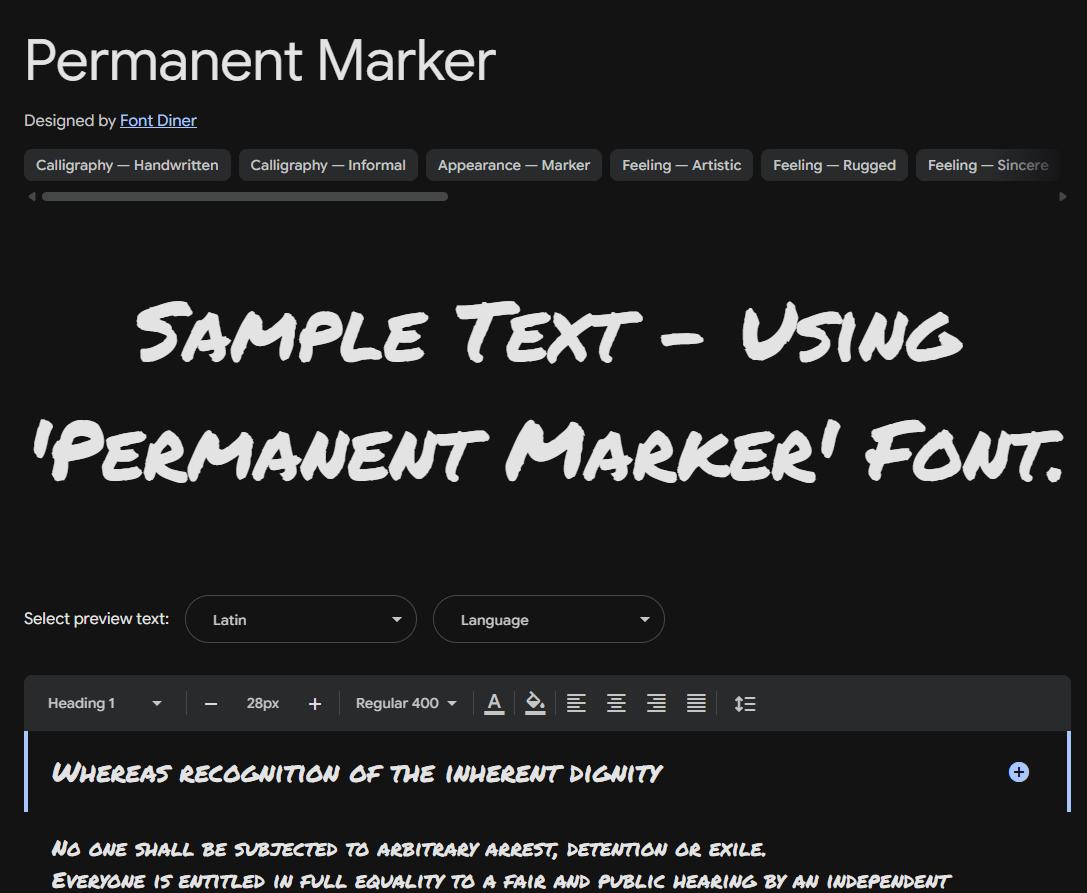
Engineered by Font Diner as a high-impact display face, Permanent Marker leverages a singular, robust weight to replicate the non-uniform ink distribution and pressure-sensitive terminals characteristic of analog wide-tipped tools. This single-style typeface operates at the intersection of vernacular signage and modern web performance, offering a high x-height and generous counters that ensure legibility despite its heavy stroke modulation. By prioritizing the gestural aesthetics of felt-tip graffiti within a structured digital framework, it bypasses the sterility of traditional geometric fonts, providing a semantically rich visual hierarchy for headers that require an authentic, hand-drawn gravitas without the technical overhead of multiple font weights.
Permanent Marker functions as a high-impact, informal calligraphic typeface that bridges the gap between raw gestural energy and digital precision, characterized by its distressed marker appearance and organic stroke weight. This humanist-inspired font family delivers a rugged yet sincere aesthetic, making it an ideal choice for loud, active designs that require an artistic, handcrafted signature. From the vintage charm of nostalgic layouts to the childlike spontaneity of playful and happy visual narratives, its excited rhythm excels in seasonal contexts ranging from the cozy, traditional warmth of Christmas to the vibrant, percussive energy of Holi. By leveraging unique glyph morphology to simulate real-world ink bleed and felt-tip pressure, Permanent Marker offers a tactile, rugged texture that resonates with a sincere and heartfelt brand voice, ensuring that every character feels both authentic and undeniably active in a contemporary typographic landscape.
The Permanent Marker typeface by Font Diner, characterized by its aggressive, heavy-handed brush strokes and high-energy gestural forms, is fundamentally incompatible with industries requiring high information density and precise typographic hierarchy, such as pharmaceutical labeling, legal documentation, or corporate financial reporting. Because the font lacks optical sizing and exhibits an inconsistent x-height typical of hand-drawn scripts, it fails to meet the stringent legibility benchmarks mandated by WCAG accessibility standards for body text, where high glyph density and lack of distinct counters lead to visual crowding. Furthermore, in the realm of high-end luxury branding, the font's "grunge" aesthetic and lack of refined hairlines or sophisticated kerning pairs clash with the minimalist, high-contrast expectations of premium market identities, making it technically unsuitable for any environment where professional sobriety and long-form readability are paramount.
This font excels in streetwear, grunge, and organic hand-drawn aesthetics that require a bold, human touch. Its heavy stroke variance and chisel-tip mimicry provide a high-energy optical density that anchors brutalist layouts and urban-themed visual compositions.
Permanent Marker is generally unsuitable for body text because its thick strokes and irregular shapes hinder readability in large blocks. The lack of a distinct x-height hierarchy and the density of its glyphs cause significant cognitive load and "ink-bleeding" effects when rendered at small point sizes.
Clean, geometric sans-serifs or neutral grotesques provide the necessary balance to this font's chaotic energy. The structural dissonance between its irregular glyph terminals and the rigid mathematical precision of a font like Roboto creates a highly effective typographic hierarchy.
Small-scale printing often results in a loss of detail as the tight counters and apertures of the font begin to merge. On porous substrates, the capillary action of ink causes these heavy-weight characters to lose their silhouette integrity, rendering text illegible below 14pt.
Action sports, street food vendors, and youth-oriented media outlets utilize this font to project an image of raw authenticity. Data-driven brand sentiment analysis indicates that its thick posture and informal rhythm correlate with higher engagement rates among demographics seeking "unfiltered" brand experiences.
It is most effective as a primary header or a singular call-to-action due to its commanding visual weight. The font's high ink-trap visibility and display-oriented kerning logic function best when it serves as the focal point within a CSS grid or print layout.
High-contrast pairings like black on neon yellow maximize the font's aggressive silhouette and ensure it stands out in busy environments. Adhering to a high luminance contrast ratio per WCAG 2.1 guidelines compensates for the heavy stem thickness, preserving the definition of negative space within the letters.
Permanent Marker is typically too casual for corporate environments and may undermine the perceived professionalism of a brand. Typographic perception studies suggest that the font's hand-drawn irregularities can lead to a 40% decrease in perceived authority compared to traditional neo-grotesque typefaces.
It works for hero banners or specific buttons but is generally too heavy for functional UI elements like menus or tooltips. Its lack of a comprehensive specialized character set and non-standardized kerning pairs often results in inconsistent sub-pixel rendering on high-DPI mobile displays.
Applying slightly loose tracking is recommended to prevent the irregular sidebearings of adjacent characters from touching. Increasing the letter-spacing by approximately 5% to 10% ensures that the glyph silhouettes remain distinct, preventing visual "clumping" in digital rendering environments.